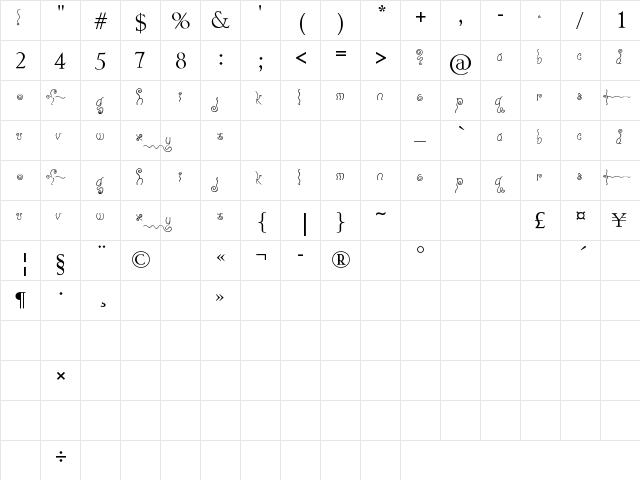
Yeah Swirls Regular
Design Context for Yeah Swirls Typeface
Yeah Swirls brings ornamental detail and strong personality to headlines and identities, where visual impact matters more than quiet functionality.
Font Pairing: Pair with a clean neutral sans-serif for body copy to let Yeah Swirls's character lead without overwhelming the composition.
Pro Tip: Use Yeah Swirls exclusively at display sizes — it was designed to be seen, not read at length. Let a neutral companion handle body copy.